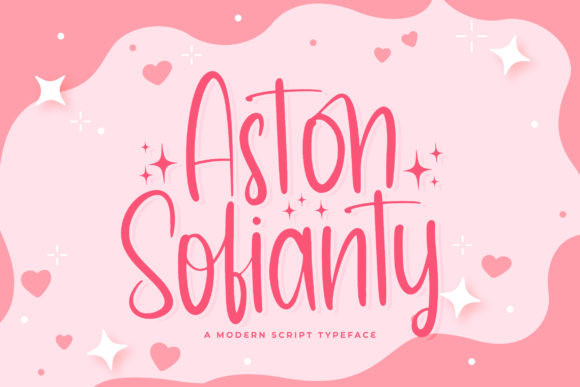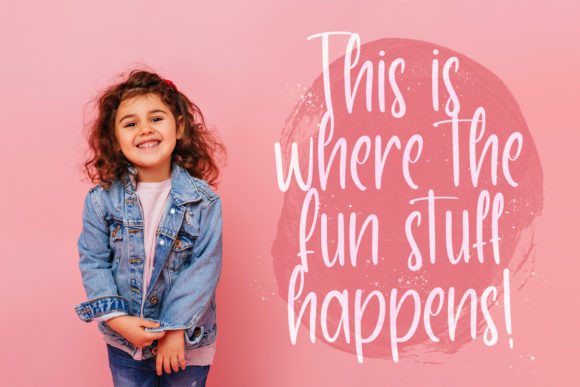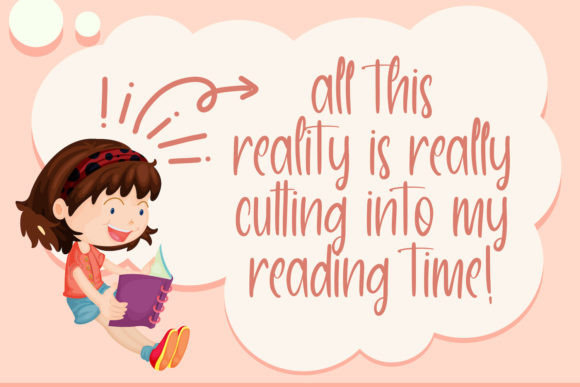
Aston Sofianty Font
Aston Sofianty is a sweet, all round and flexible handwritten font. Warm, romantic and jolly, this font will turn each of your project ideas into real works of art. Have fun with this beautiful font and explore its endless variations.